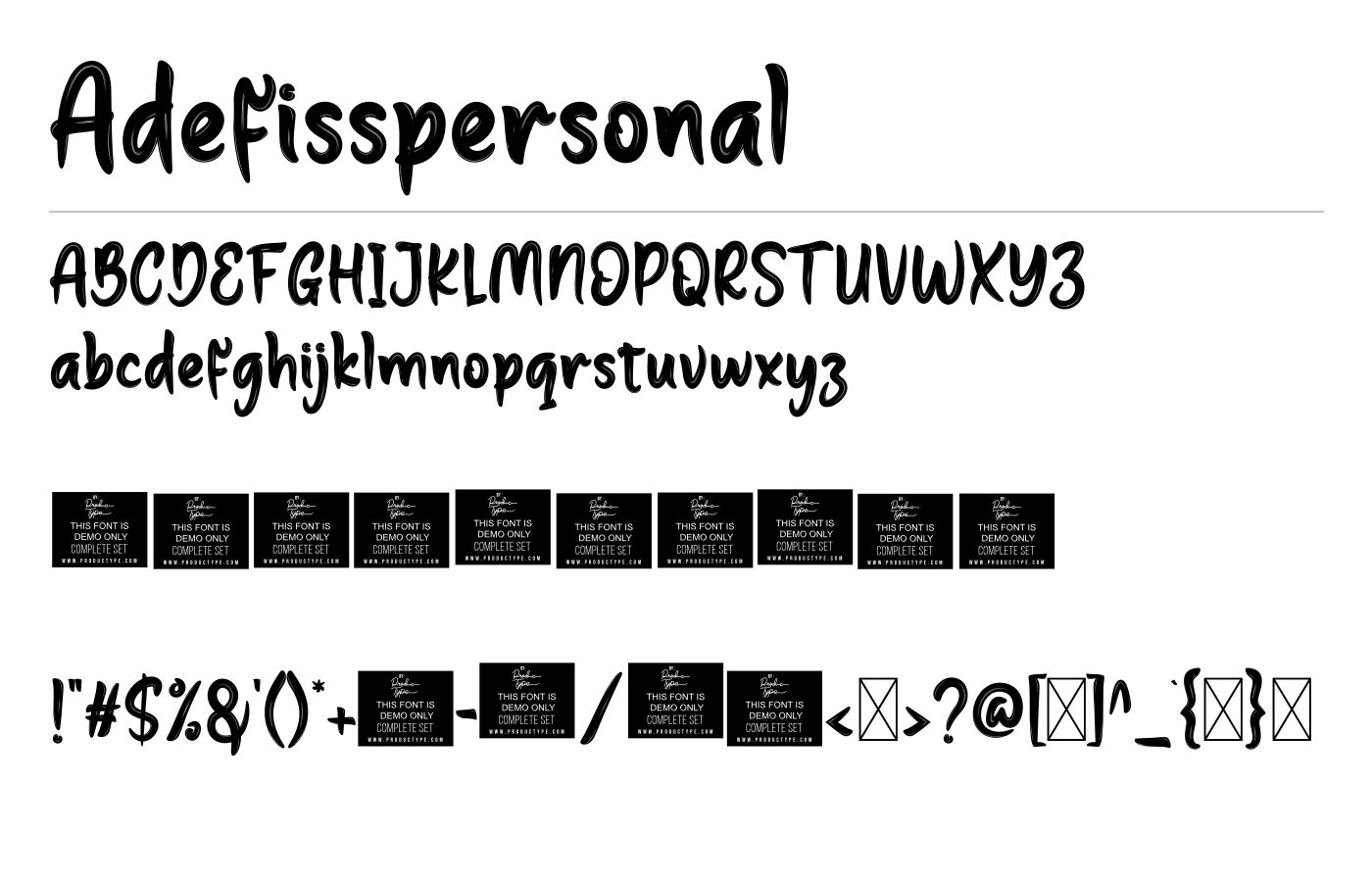
Adefisspersonal is a playful, casual handwritten font with a lively and informal feel. Its rounded, slightly uneven strokes and medium weight create a friendly and approachable style perfect for creative projects, kids’ content, and personalized branding. This font works best in headlines, invitations, and eye-catching designs where warmth and personality are desired.
Adefisspersonal Font
About Adefisspersonal Font